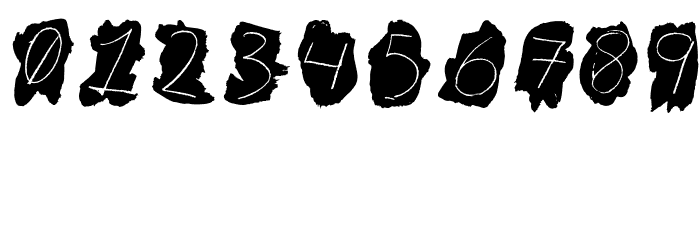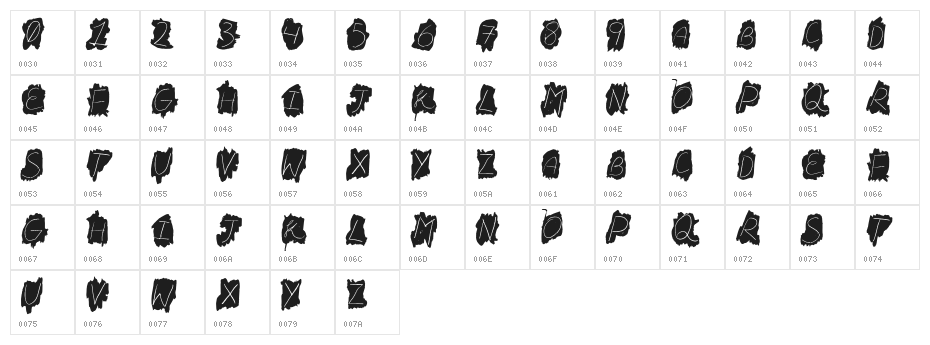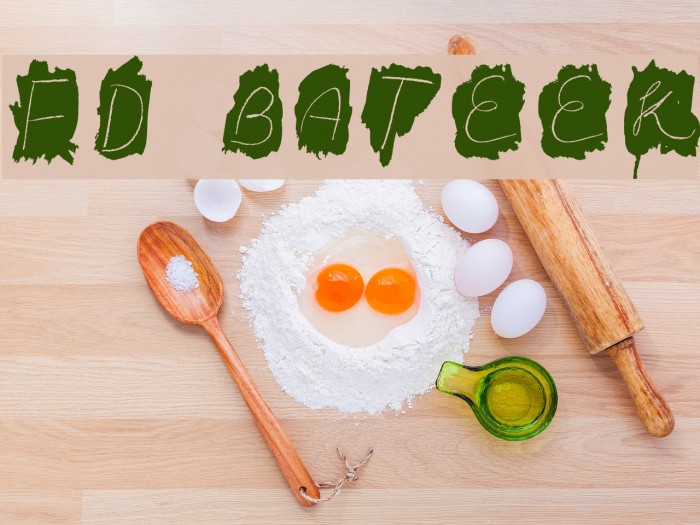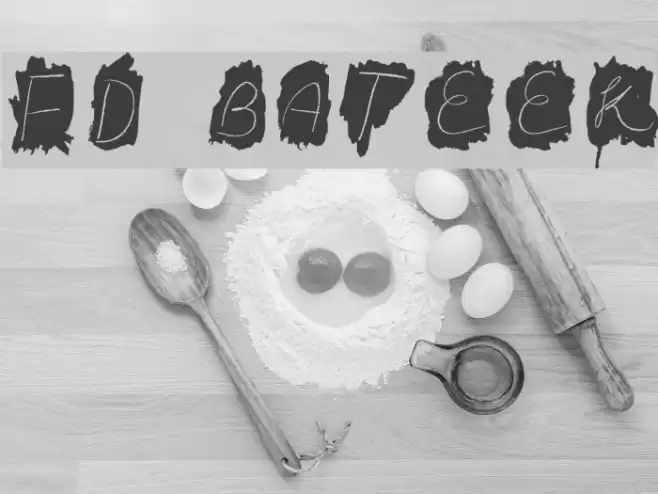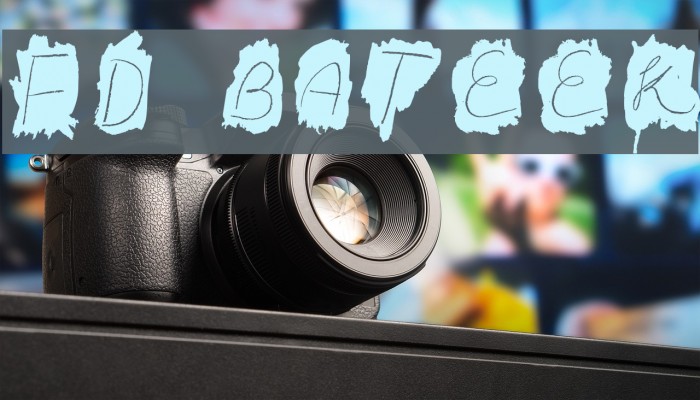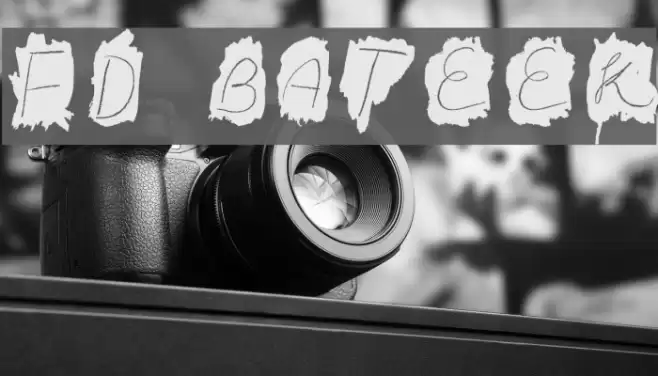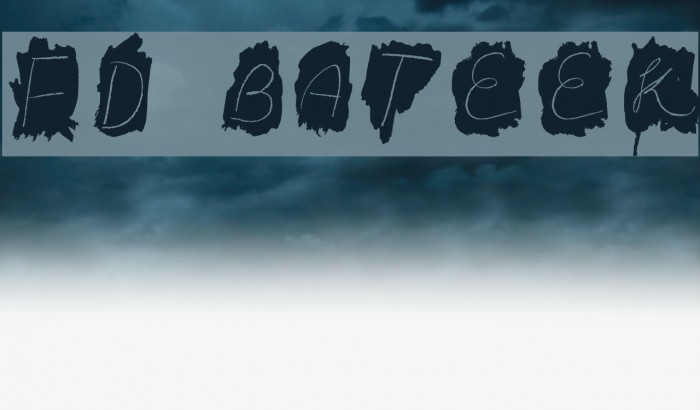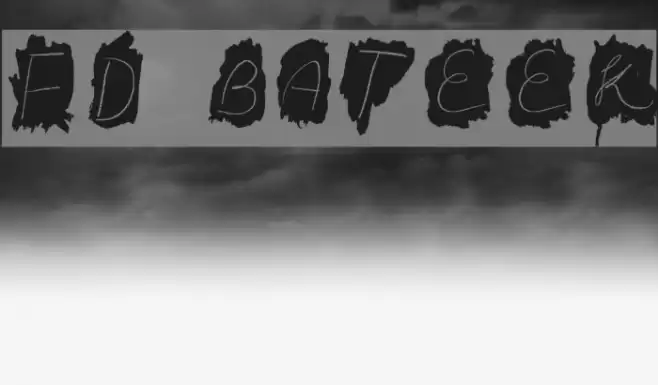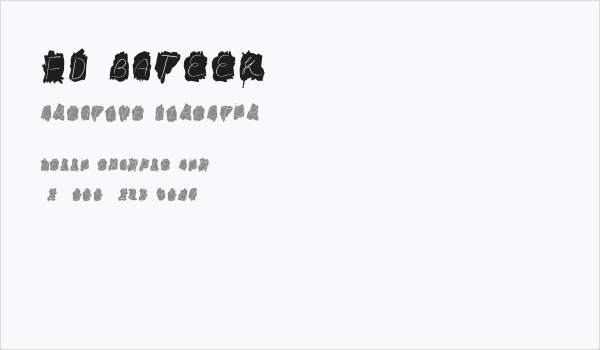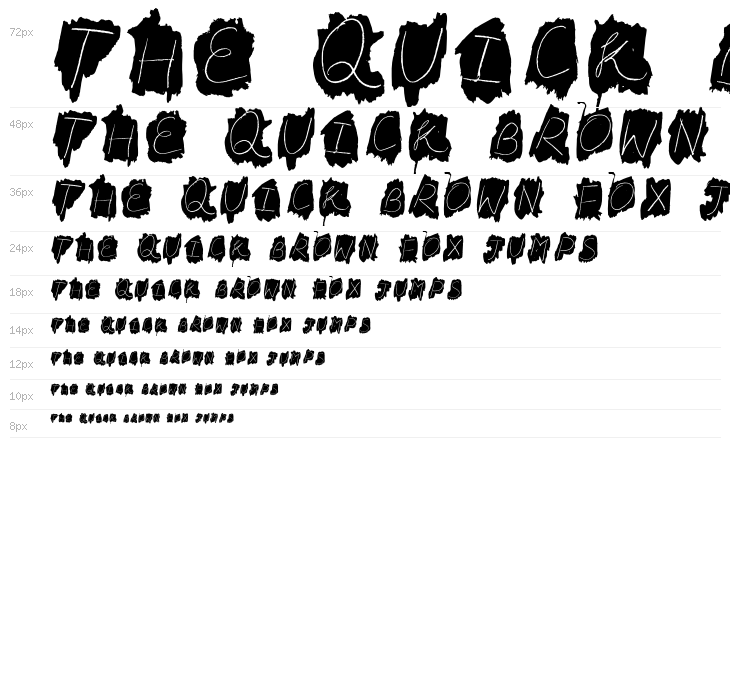
FD Bateek Font
FD Bateek Description
This font features a bold and dynamic style with a graffiti-like appearance. The characters are heavily stylized with rough, jagged edges and a sense of movement, as if they were painted with a brush. The letters are filled with solid black, creating a strong contrast against any background. The design is highly decorative, making it stand out with its unique and edgy aesthetic. Each character is distinct, yet they all share a cohesive style that ties the font together. The font's energetic and rebellious vibe makes it perfect for projects that require a bold statement.
| Use Case | Logos, Posters, Headlines |
| Proposed Projects | Ideal for street art designs, music album covers, urban-themed posters, and edgy branding projects. |